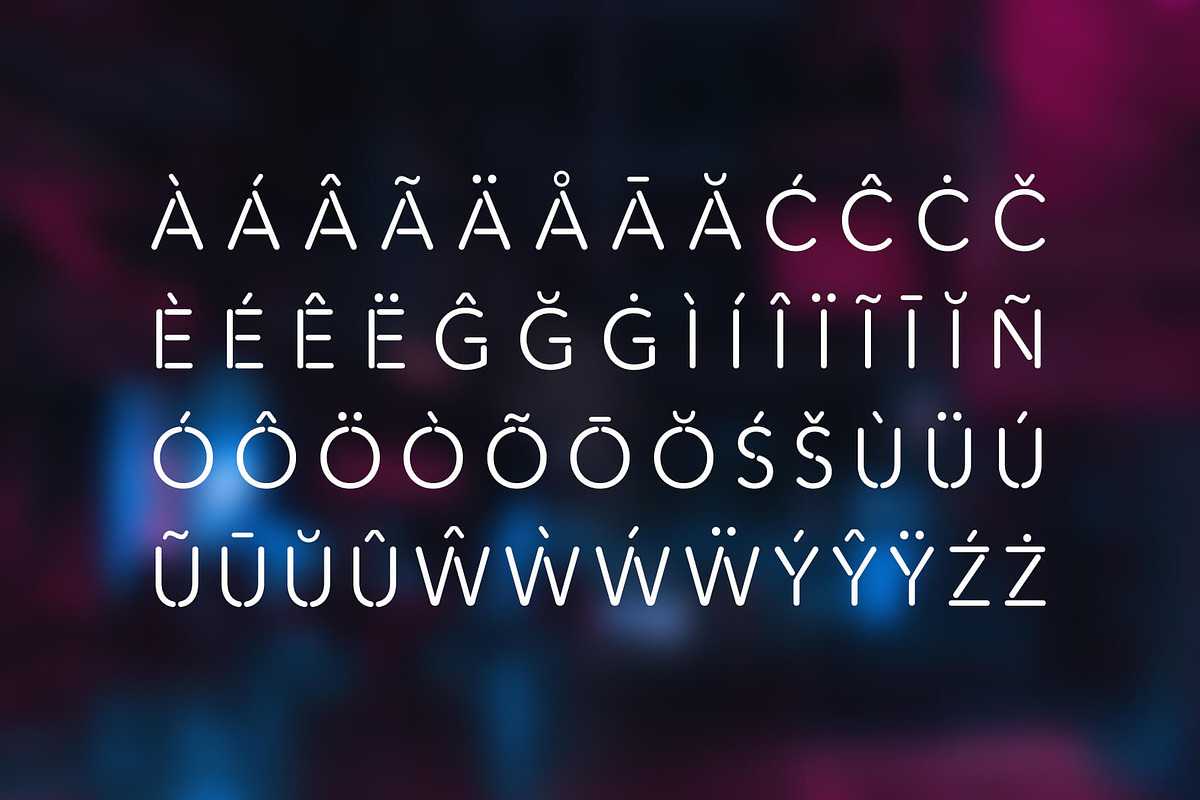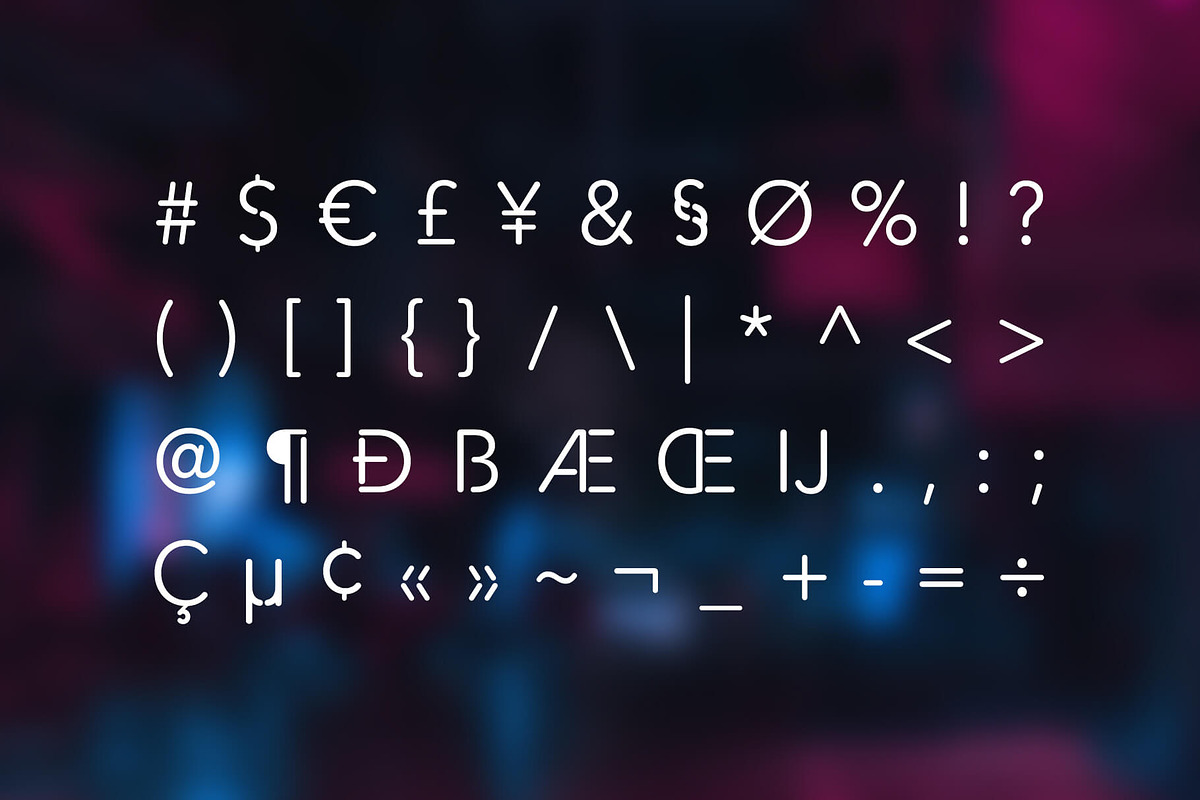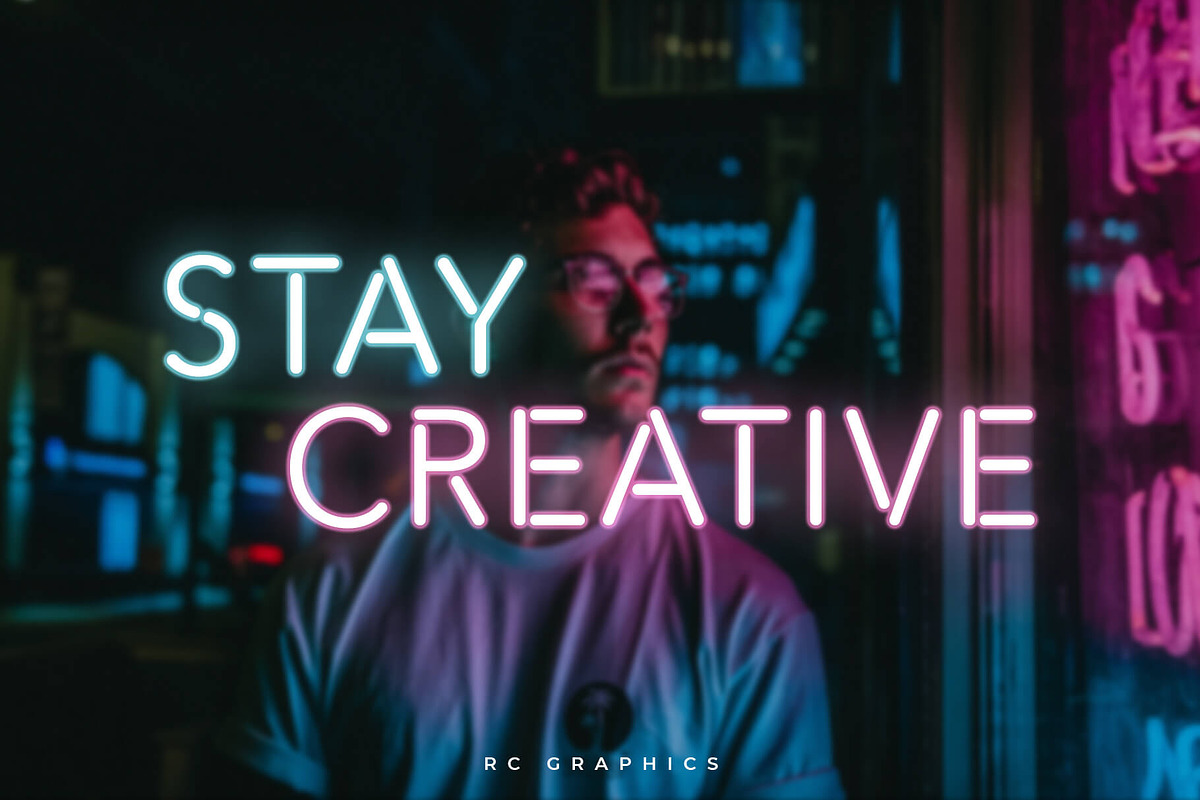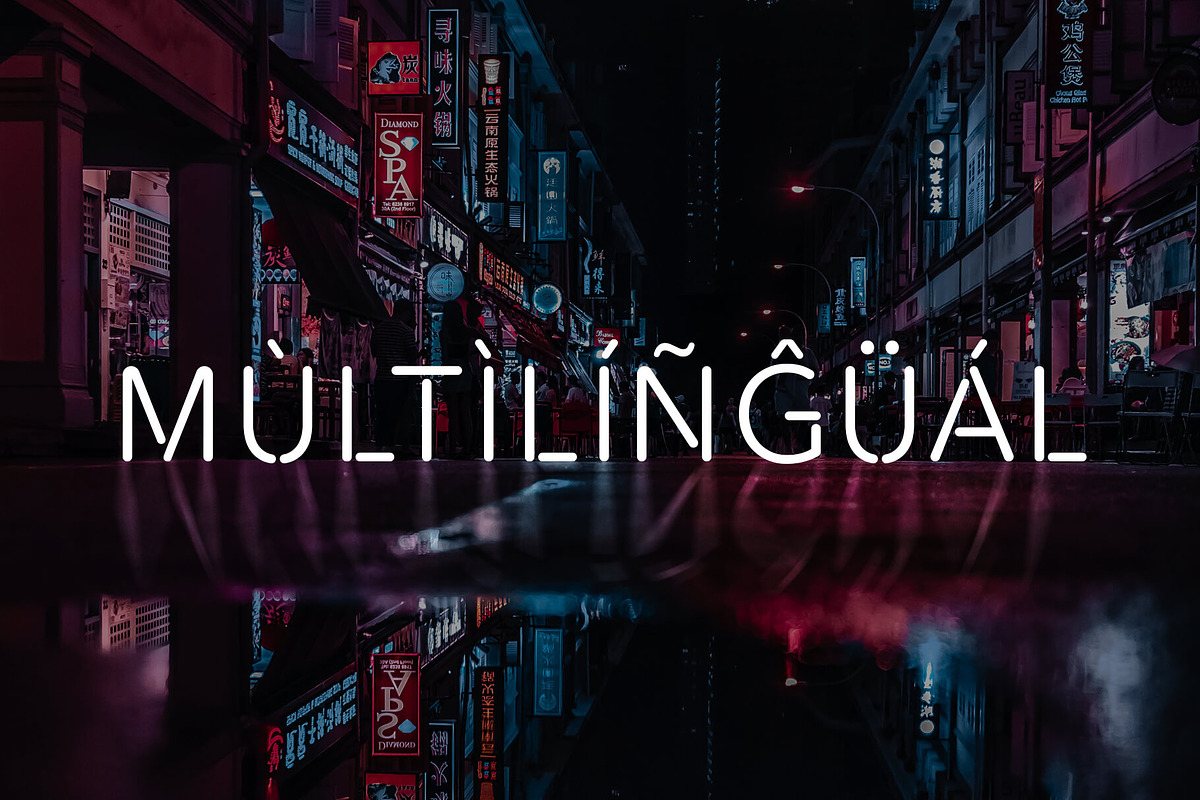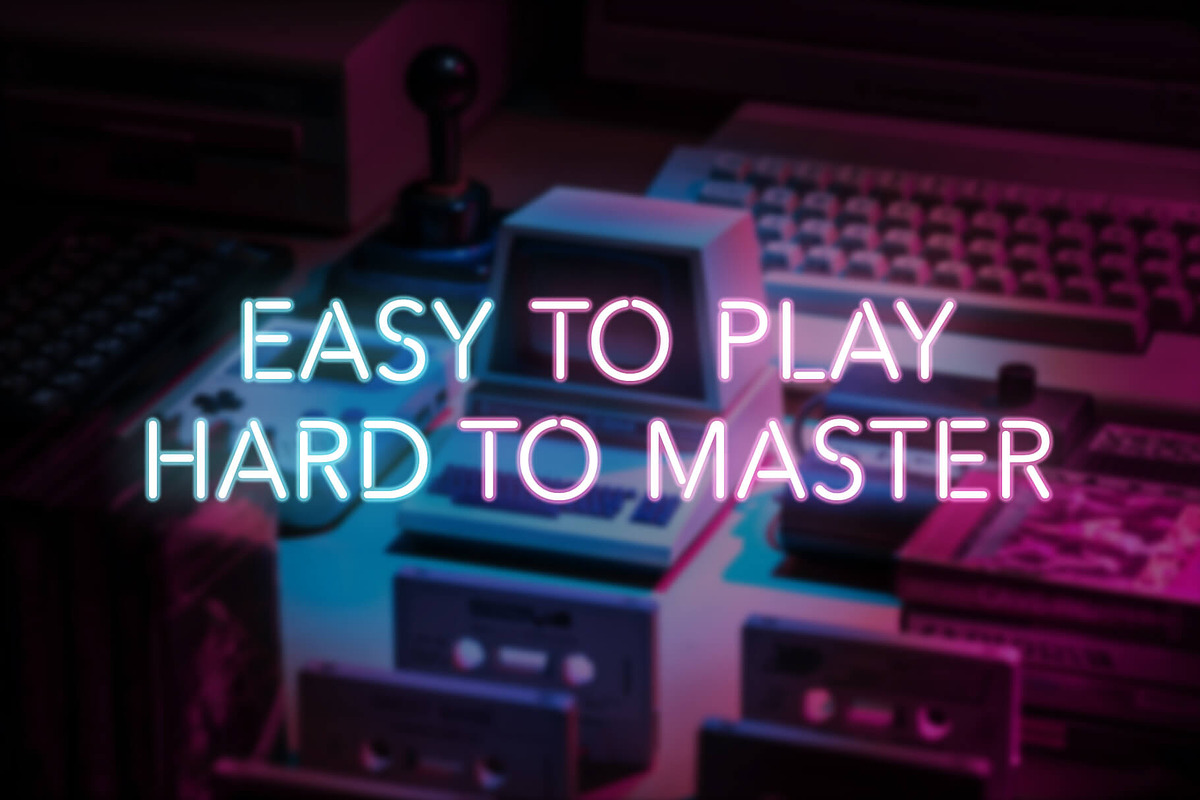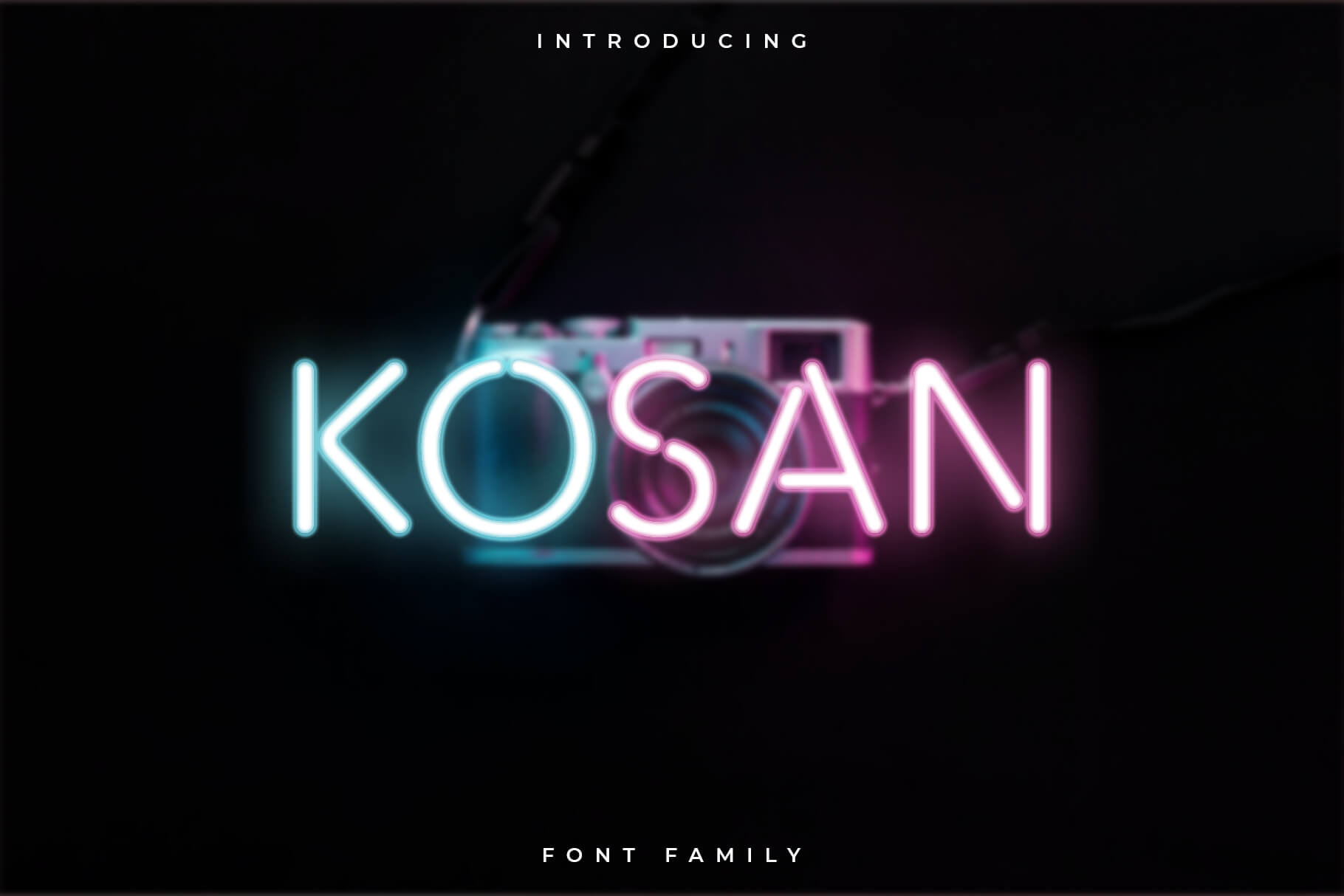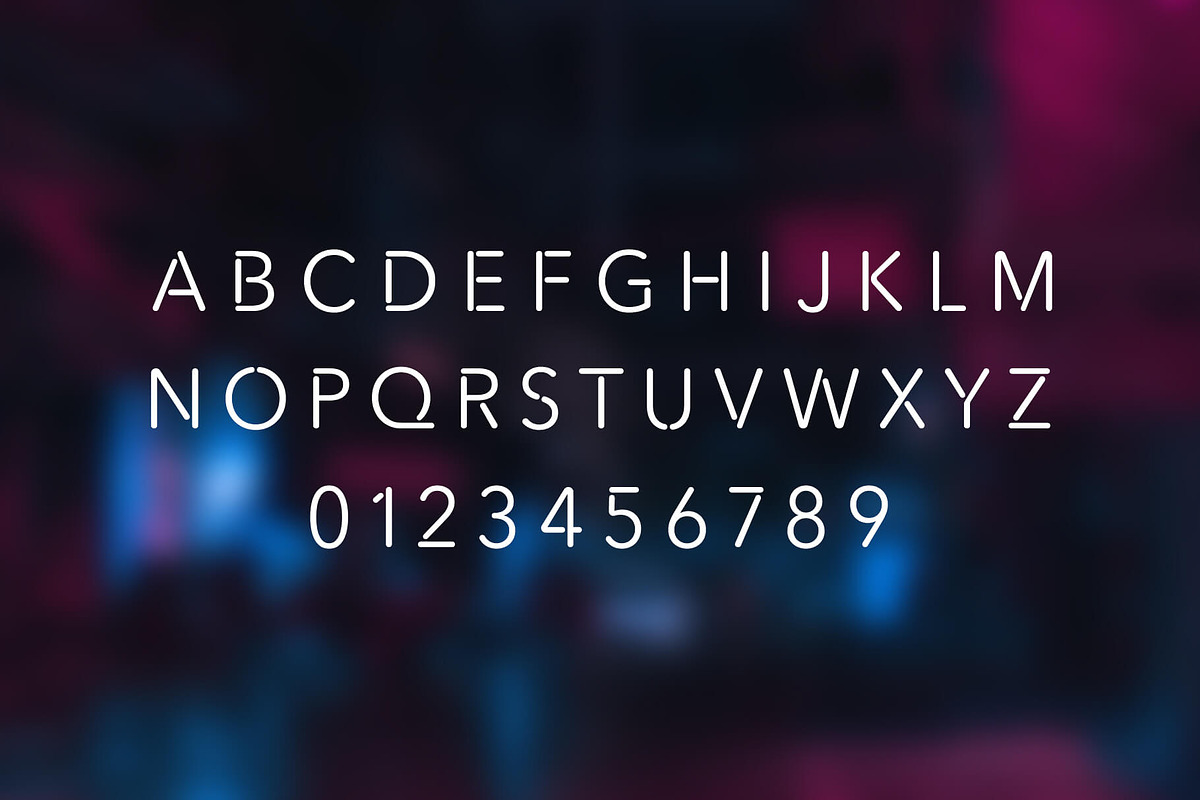
Kosan Font Family – Display Font
Kosan is a modern and futuristic display font. A font with a futuristic edge, neon forms, perfect for technology, digital, video games, modern futuristic theme. This font Perfectly suites for variety display purposes, including logotypes, badges and labels, headlines and banners, posters, prints and much more.
- Uppercase letters
- Multilingual (Foreign language characters)